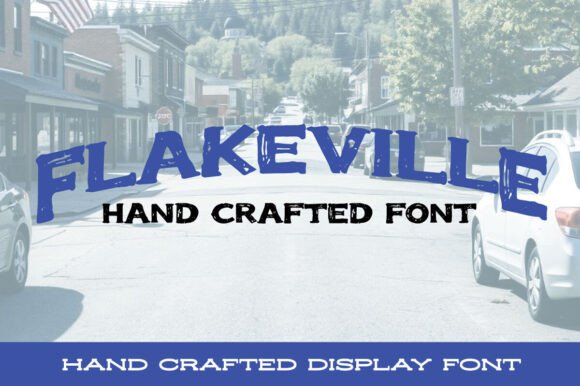
Introducing Flakeville Font: The Perfect Blend of Vintage Charm and Distressed Elegance
In the world of typography, few fonts manage to capture the essence of nostalgia and retro charm as effectively as Flakeville. This hand-drawn font is a masterful blend of vintage aesthetics and distressed, characterful edges, making it an ideal choice for designers and crafters looking to add a touch of authenticity to their projects. With its uneven strokes, subtle weathering, and playful yet time-honored aesthetic, Flakeville is the perfect font for those who crave an imperfect, retro vibe.
The Story Behind Flakeville
Flakeville’s unique charm lies in its hand-drawn origins. Each letter is carefully crafted to evoke the feel of time-worn signage and classic print. The font’s uneven strokes and subtle weathering give it a sense of history, as if it’s been plucked straight from a bygone era. This attention to detail makes Flakeville more than just a font – it’s a design element that can elevate any project into a work of art.
The Characteristics of Flakeville
So, what sets Flakeville apart from other fonts? Here are a few key characteristics that make it so special:
- Hand-drawn with love: Flakeville is crafted with care and attention to detail, giving it a unique, human touch.
- Distressed edges: The font’s distressed edges add a sense of wear and tear, giving it a vintage, retro feel.
- Uneven strokes: Flakeville’s uneven strokes add to its charm, giving it a sense of imperfection and character.
- Subtle weathering: The font’s subtle weathering gives it a sense of age and history.
Using Flakeville in Your Projects
Flakeville is an incredibly versatile font that can be used in a wide range of projects. Here are a few ideas to get you started:
- Headlines and titles: Flakeville is perfect for creating eye-catching headlines and titles that demand attention.
- Posters and flyers: The font’s distressed edges and vintage charm make it a great choice for posters and flyers that need to stand out.
- Branding and packaging: Flakeville can add a touch of authenticity to your branding and packaging, helping you to create a unique and memorable identity.
- Signage and display: The font’s retro aesthetic makes it perfect for signage and display projects that need to evoke a sense of nostalgia.
The Benefits of Using Flakeville
So, why choose Flakeville over other fonts? Here are a few benefits that make it an attractive choice for designers and crafters:
- Unique and distinctive: Flakeville’s hand-drawn origins and distressed edges make it a one-of-a-kind font that will set your projects apart.
- Easy to read: Despite its distressed edges, Flakeville is incredibly easy to read, making it perfect for body text and headlines.
- Highly versatile: The font’s versatility means it can be used in a wide range of projects, from posters and flyers to branding and packaging.
- Time-saving: With Flakeville, you can create professional-looking projects in no time, thanks to its clear and legible design.
Flakeville is a truly unique font that offers a perfect blend of vintage charm and distressed elegance. Its hand-drawn origins, uneven strokes, and subtle weathering make it an ideal choice for designers and crafters looking to add a touch of authenticity to their projects. Whether you’re creating headlines, posters, or branding, Flakeville is the perfect font for those who crave an imperfect, retro vibe. So why not give it a try and see how it can elevate your designs?
With its playful yet time-honored aesthetic, Flakeville is a celebration of creative imperfection and retro flair. It’s a font that’s sure to inspire your creativity and help you to create projects that tell their own unique story.